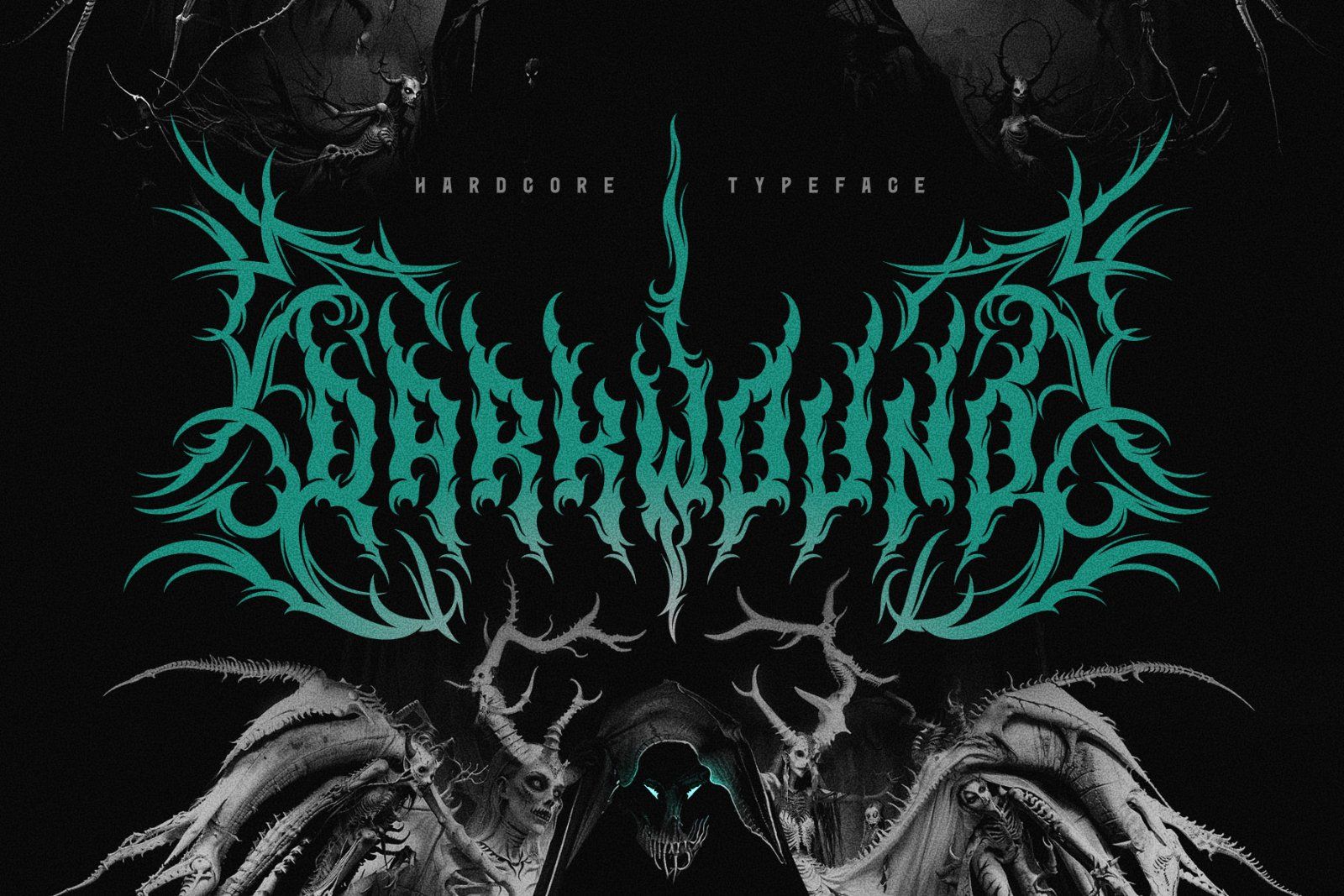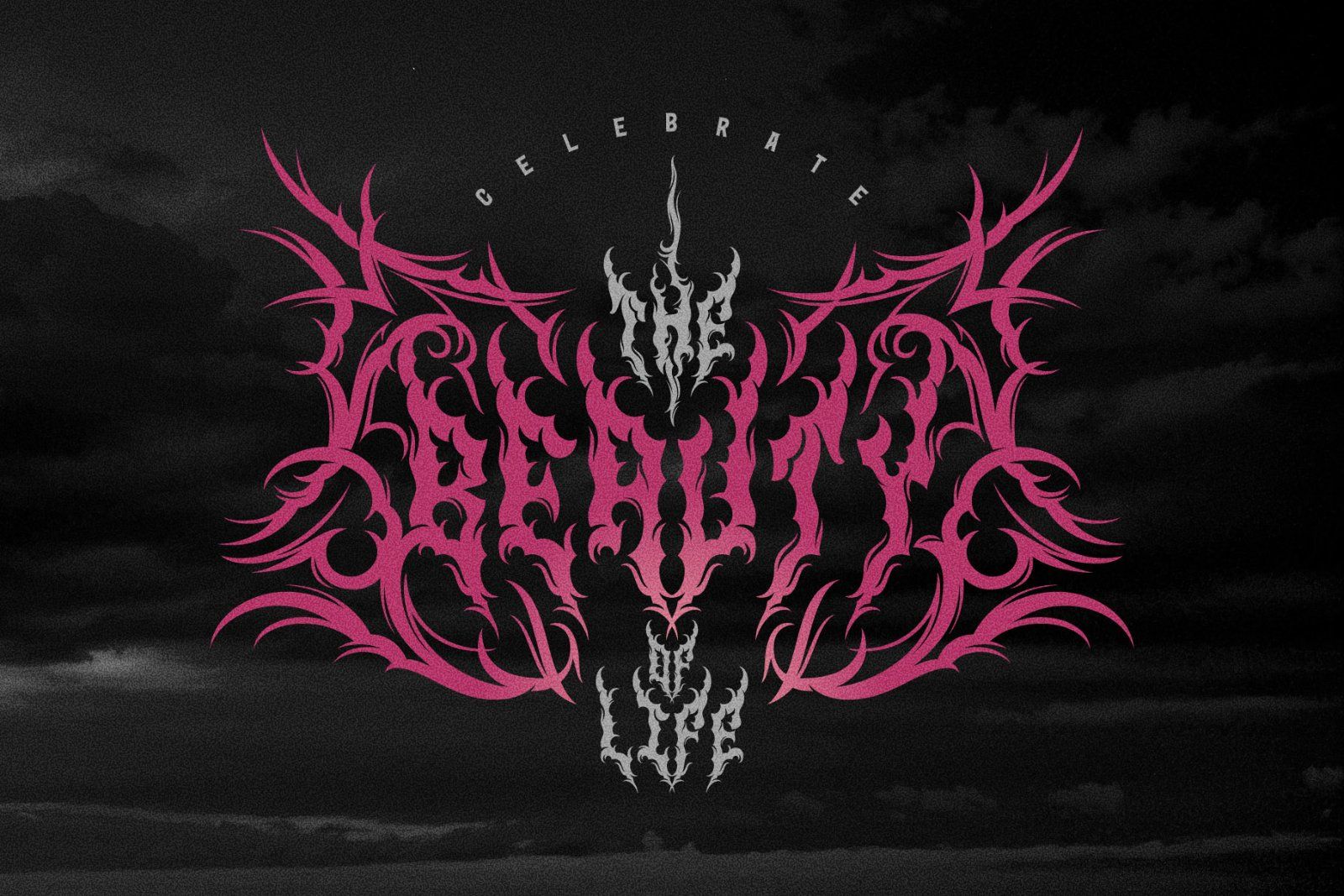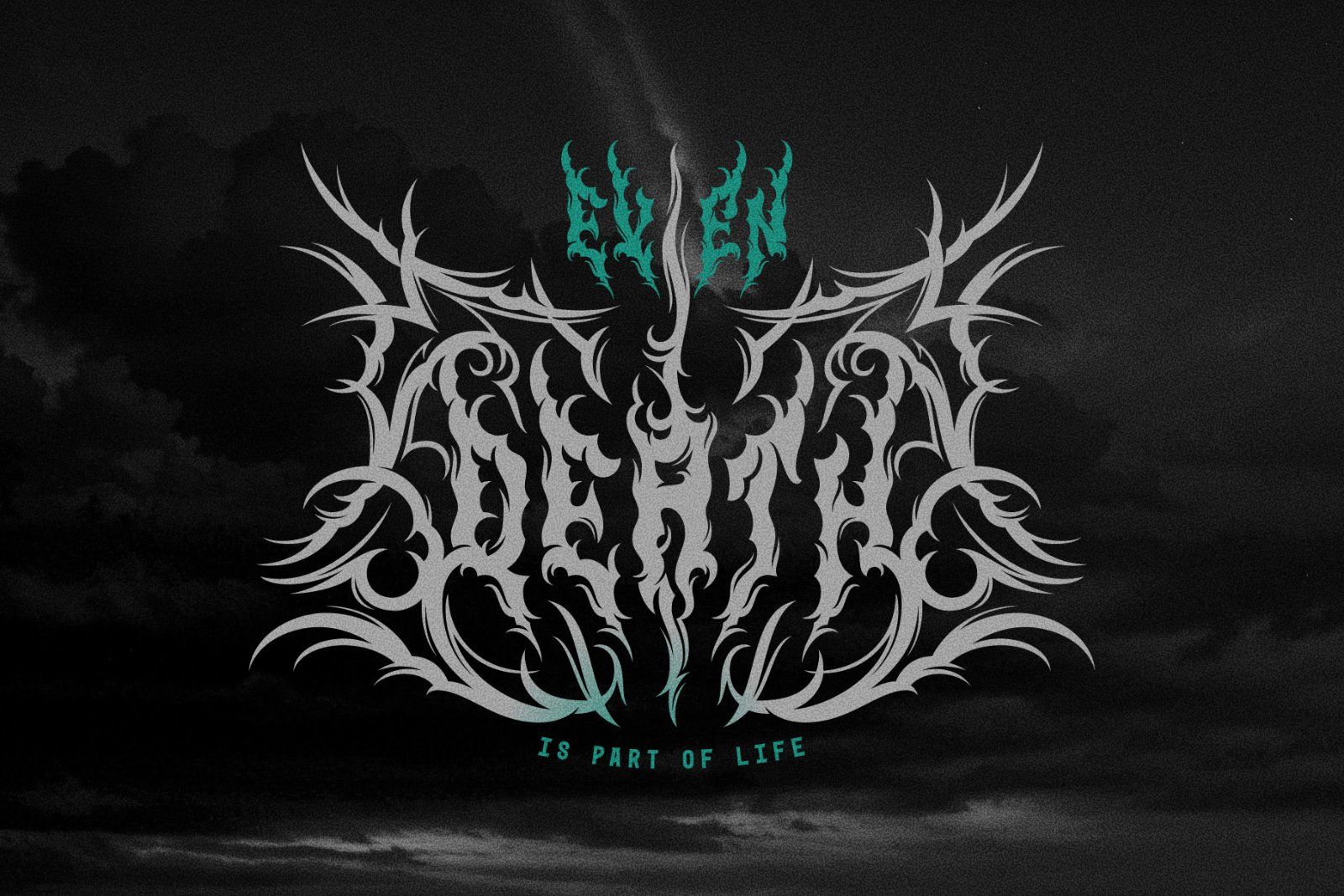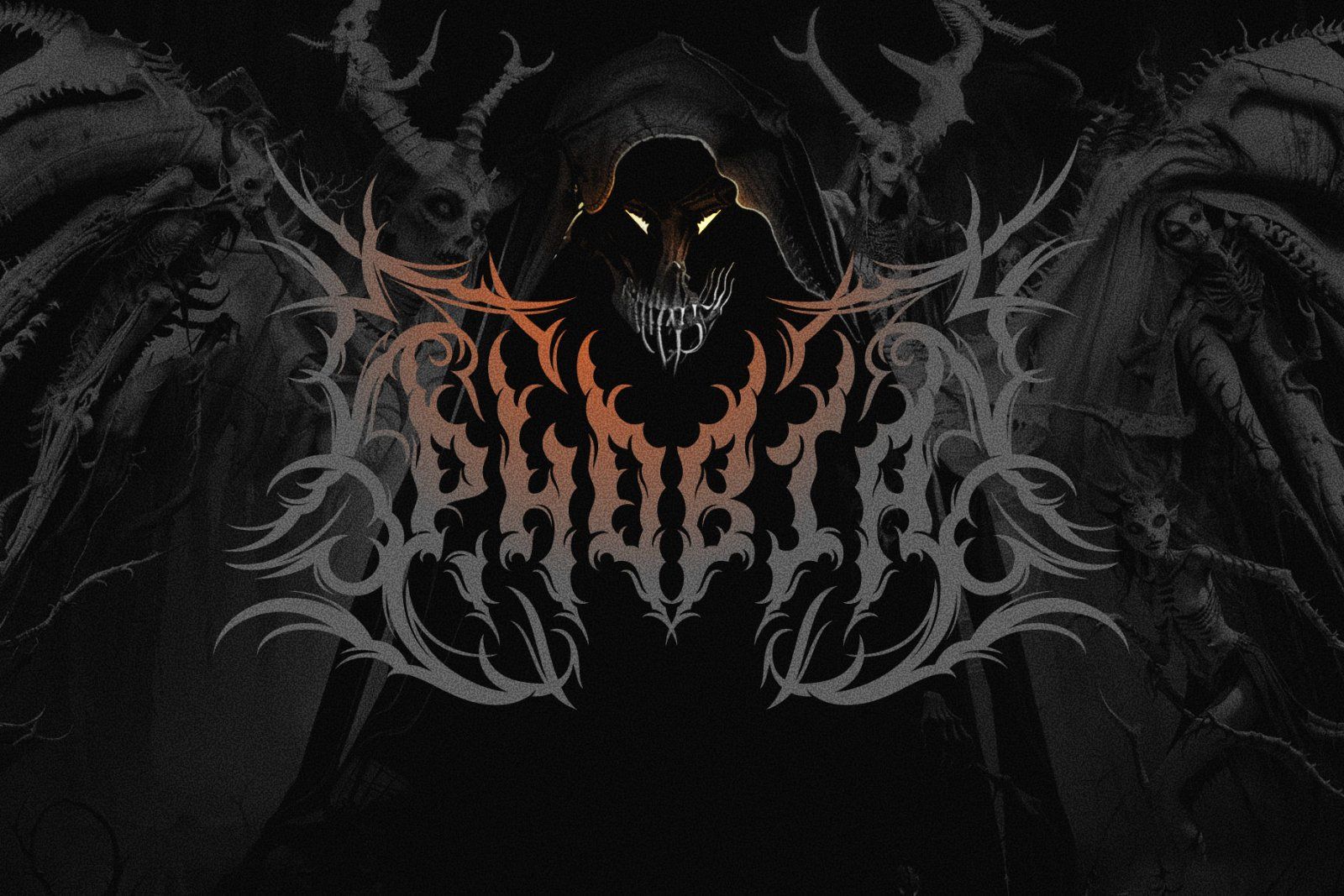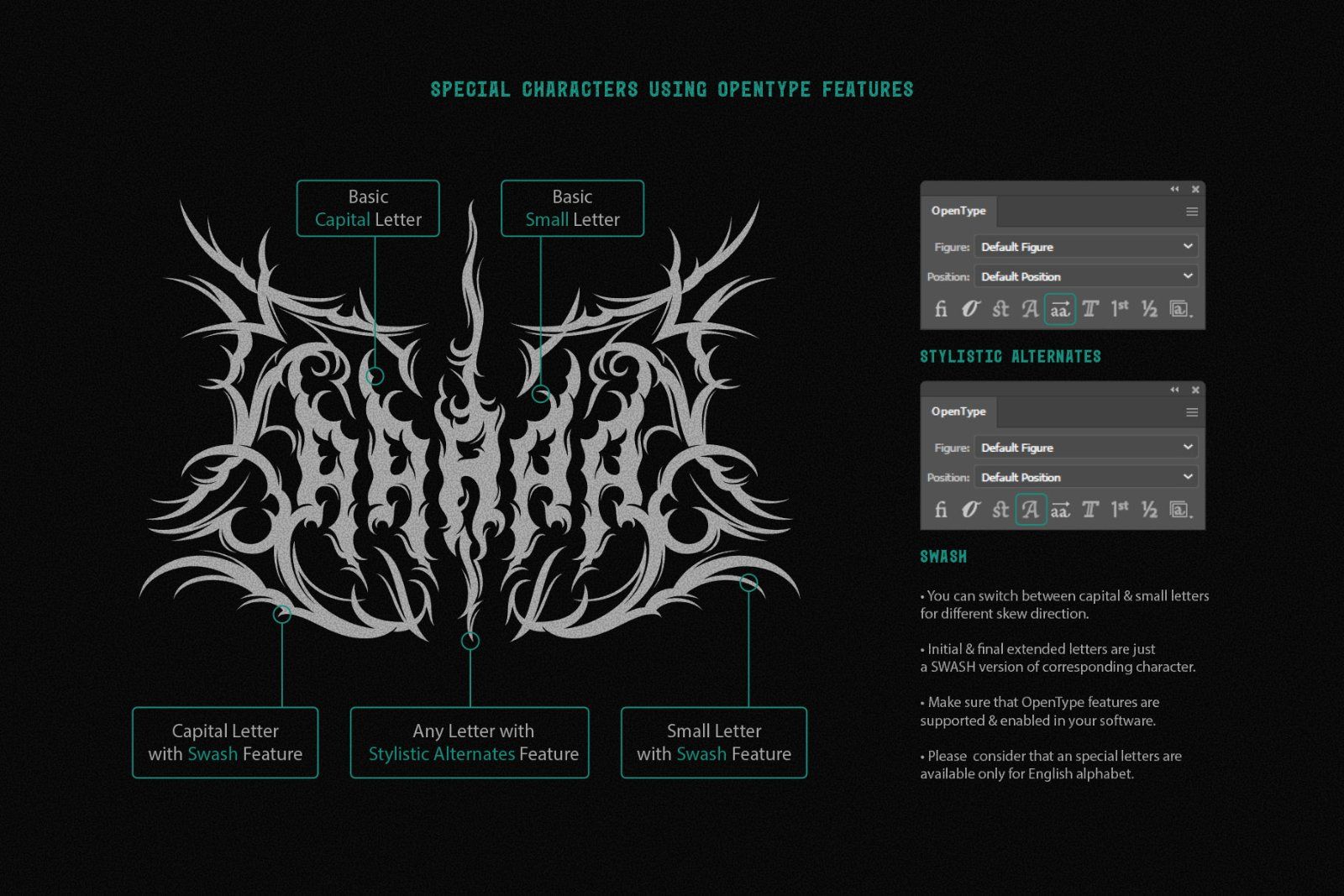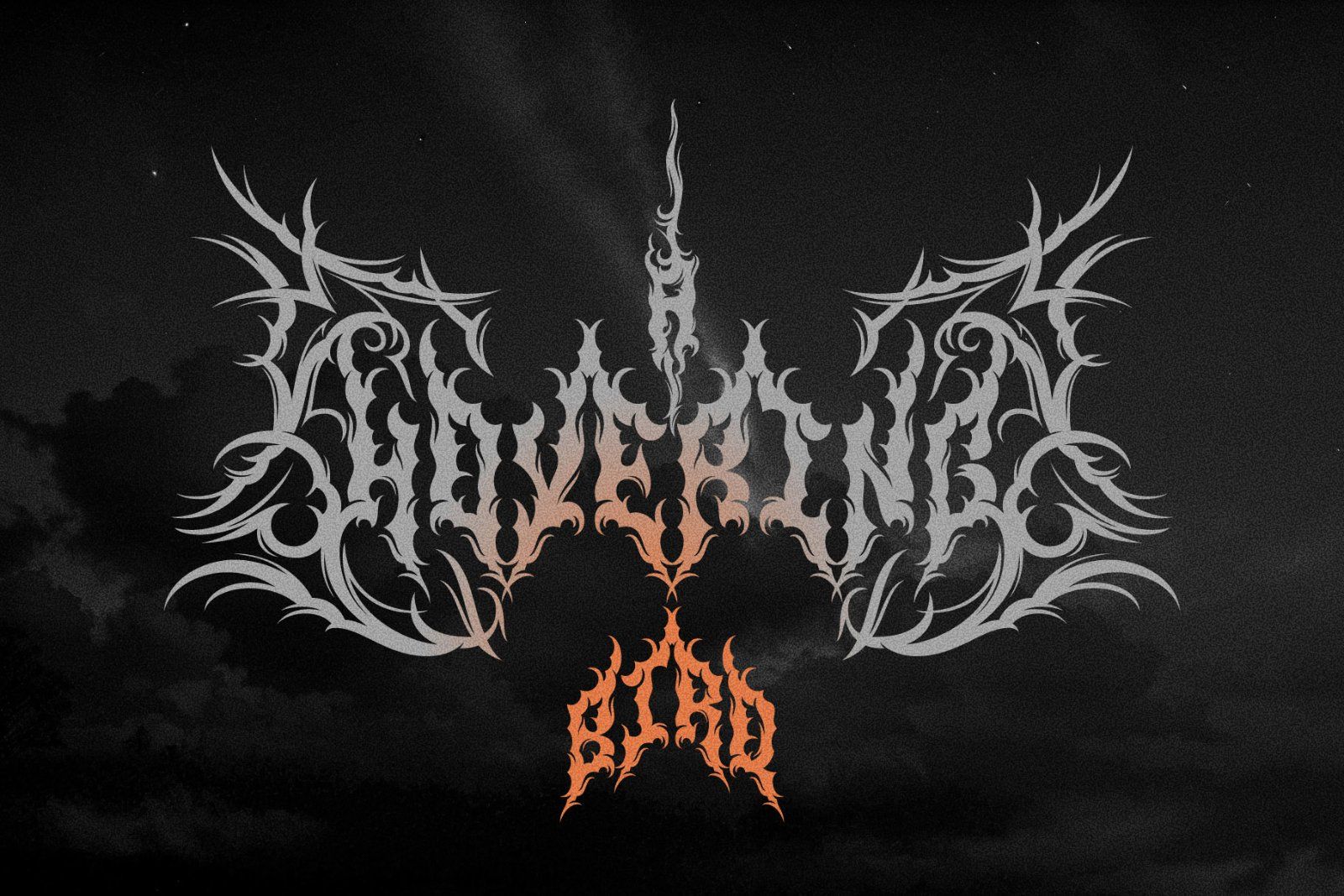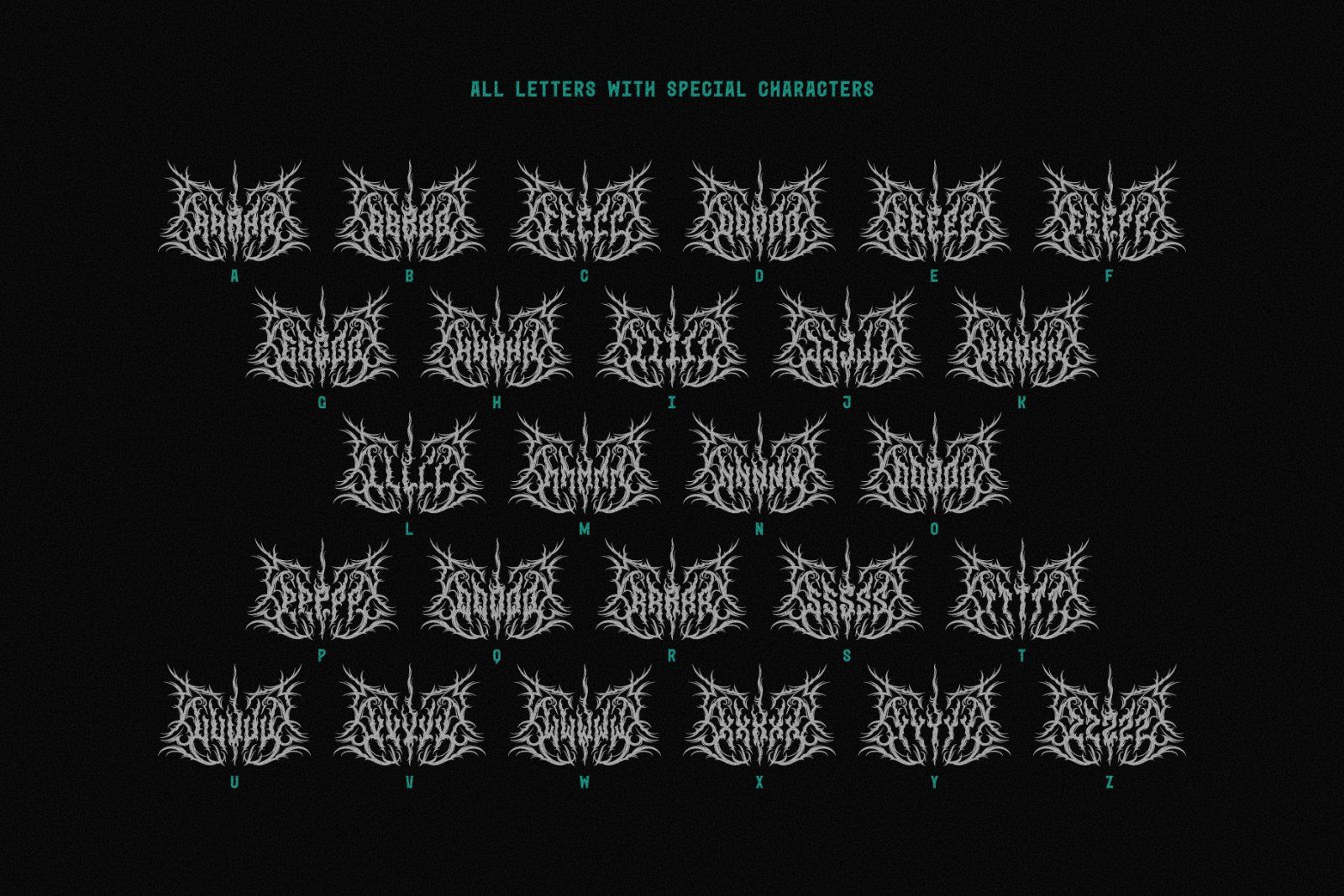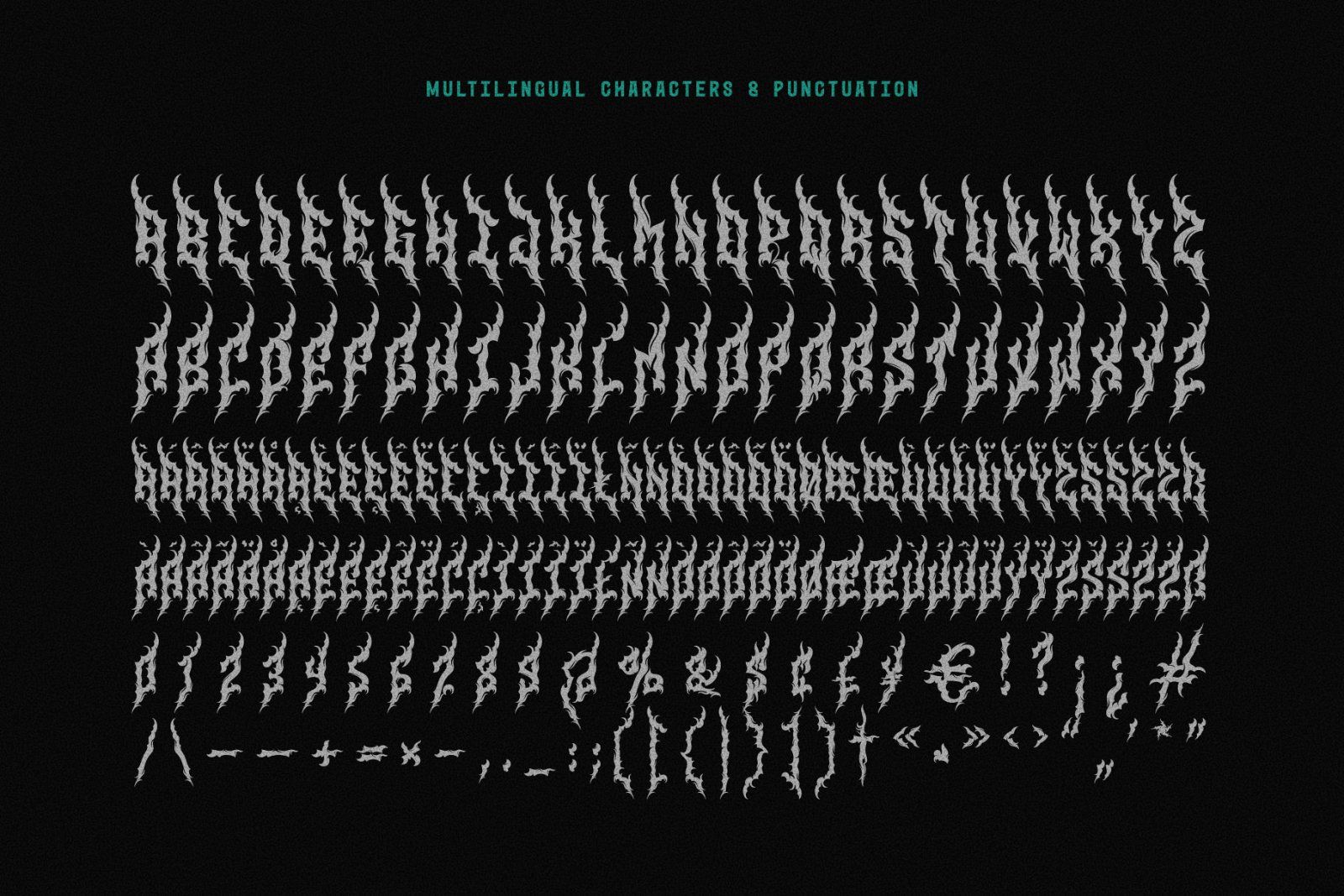
Hello! Introducing the Darkwound Typeface, an authentic and brutal font with a distinctive shape. This original typeface features sharp and spiky edges that convey an aggressive character. The extended special letters will help you create stunning lettering compositions with a true heavy-metal vibe.
You can switch between capital and lowercase letters to set the skew direction. The initial and final extended letters are Swash versions of the corresponding characters. Middle letter with long vertical spike is a Stylistic Alternate version. Ensure that OpenType features are supported and enabled in your software.
The Darkwound Typeface supports most European languages. However, please note that the special extended letters are only available for the English alphabet. Refer to the screenshots to view the full set of available characters.